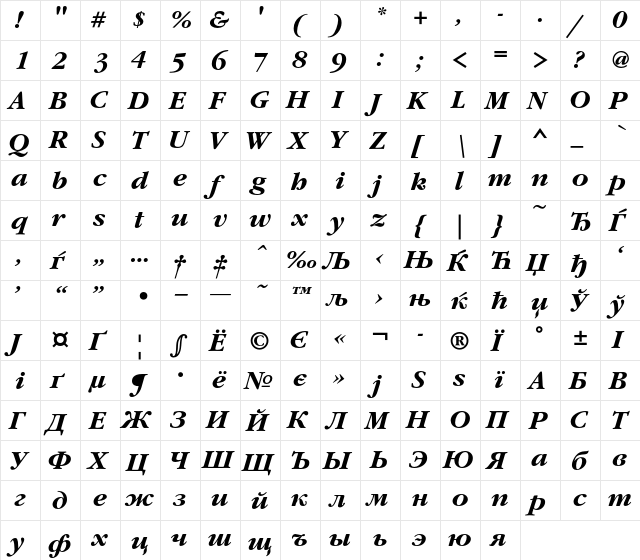
GaramondC Regular
Design Context for GaramondC Typeface
GaramondC takes a measured approach to typography — its balanced proportions and neutral character make it a reliable workhorse for both digital and print work.